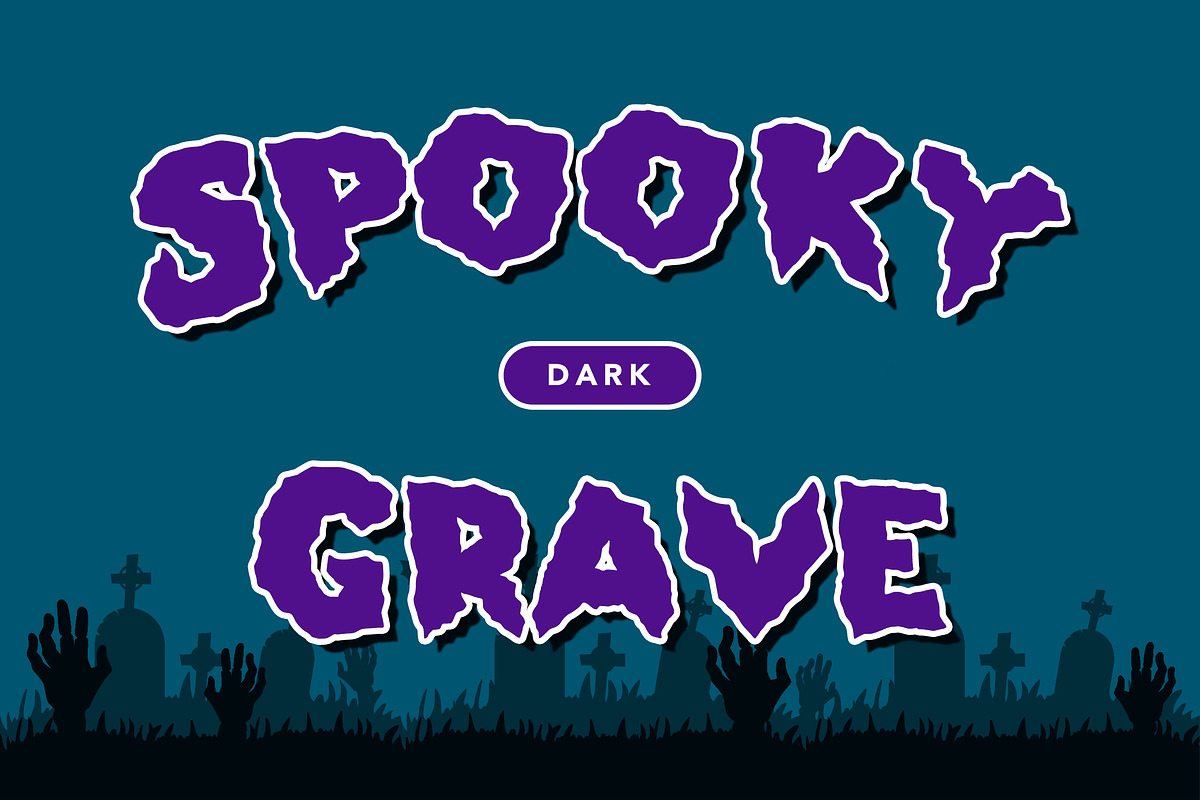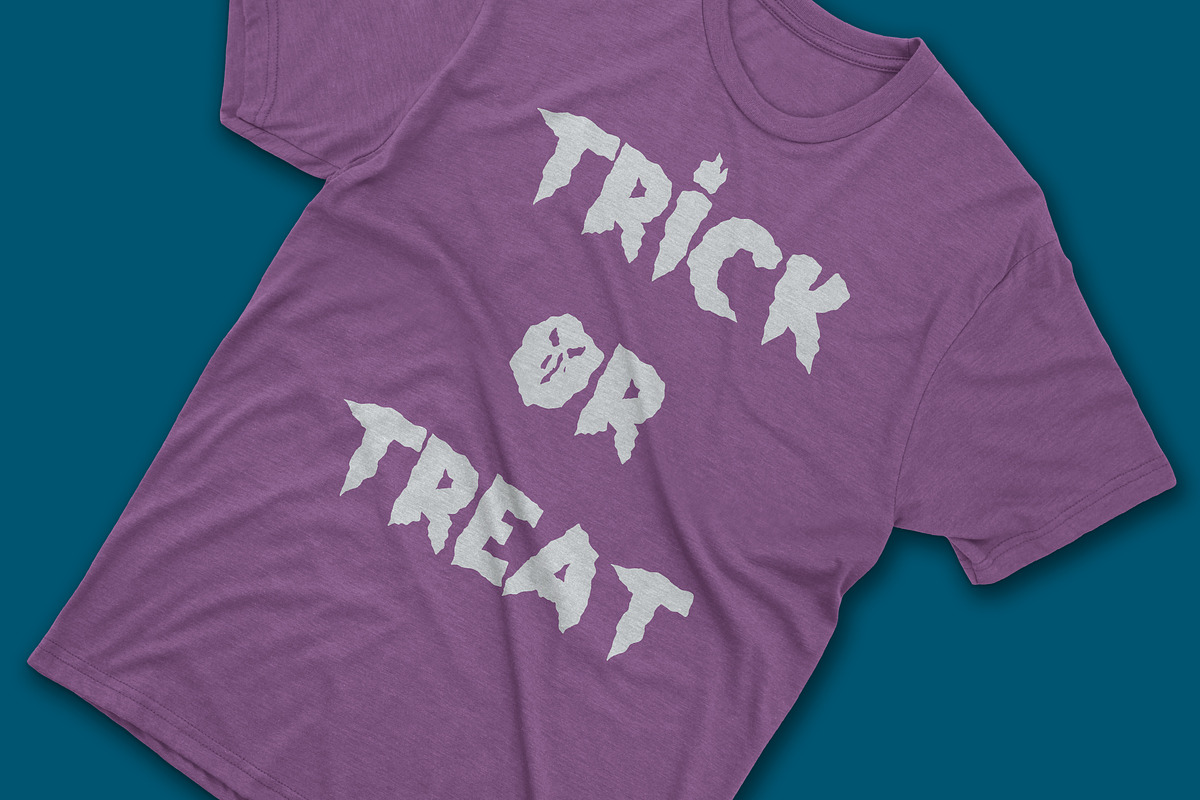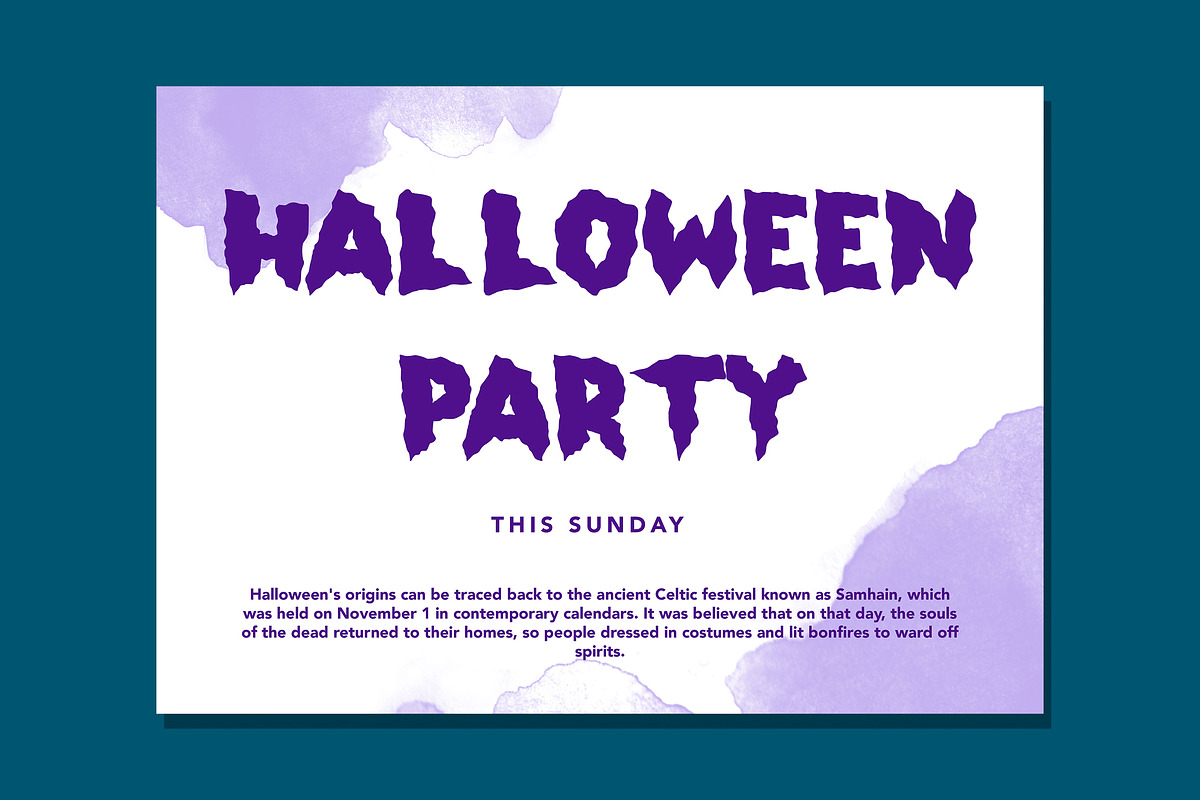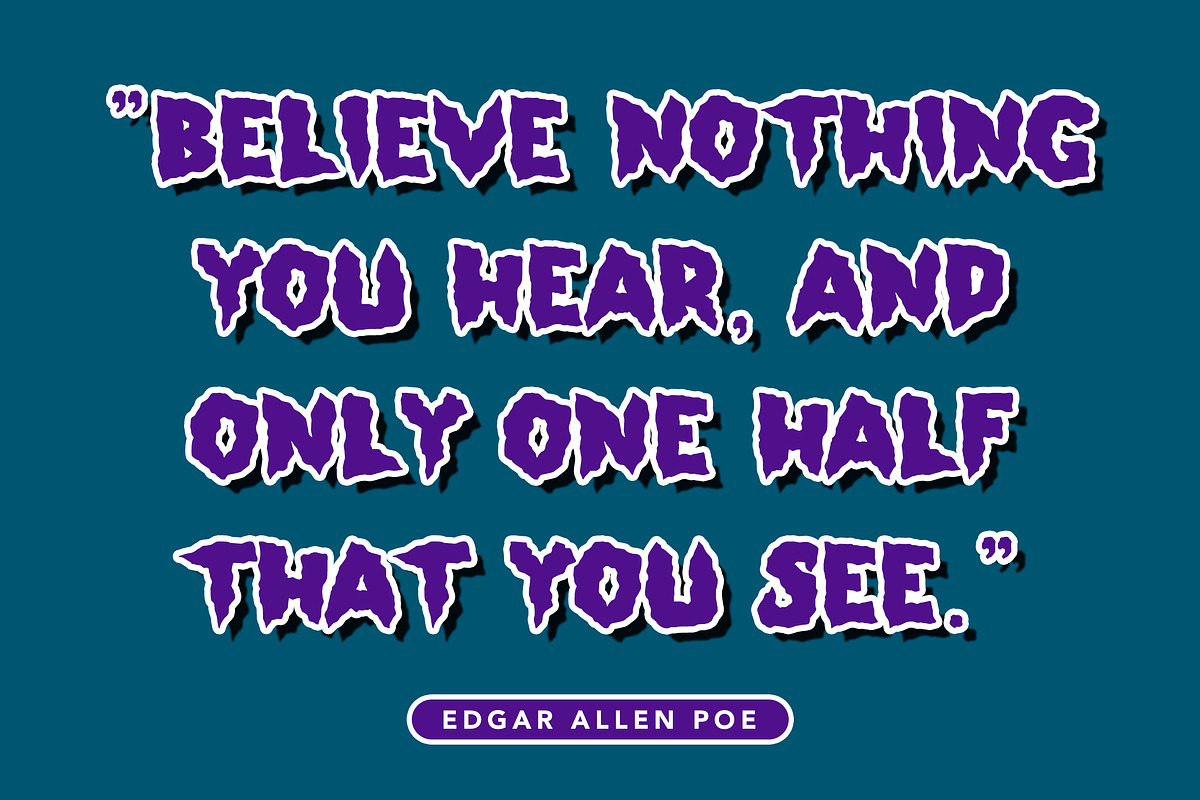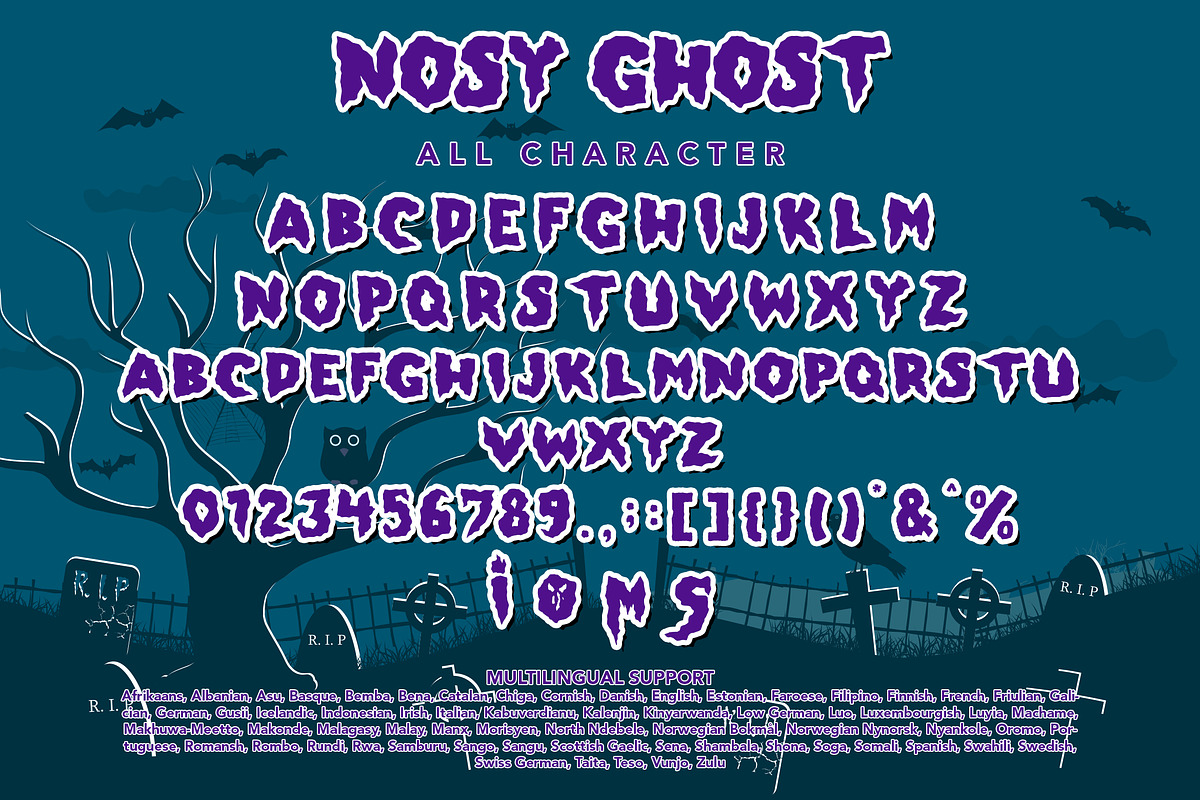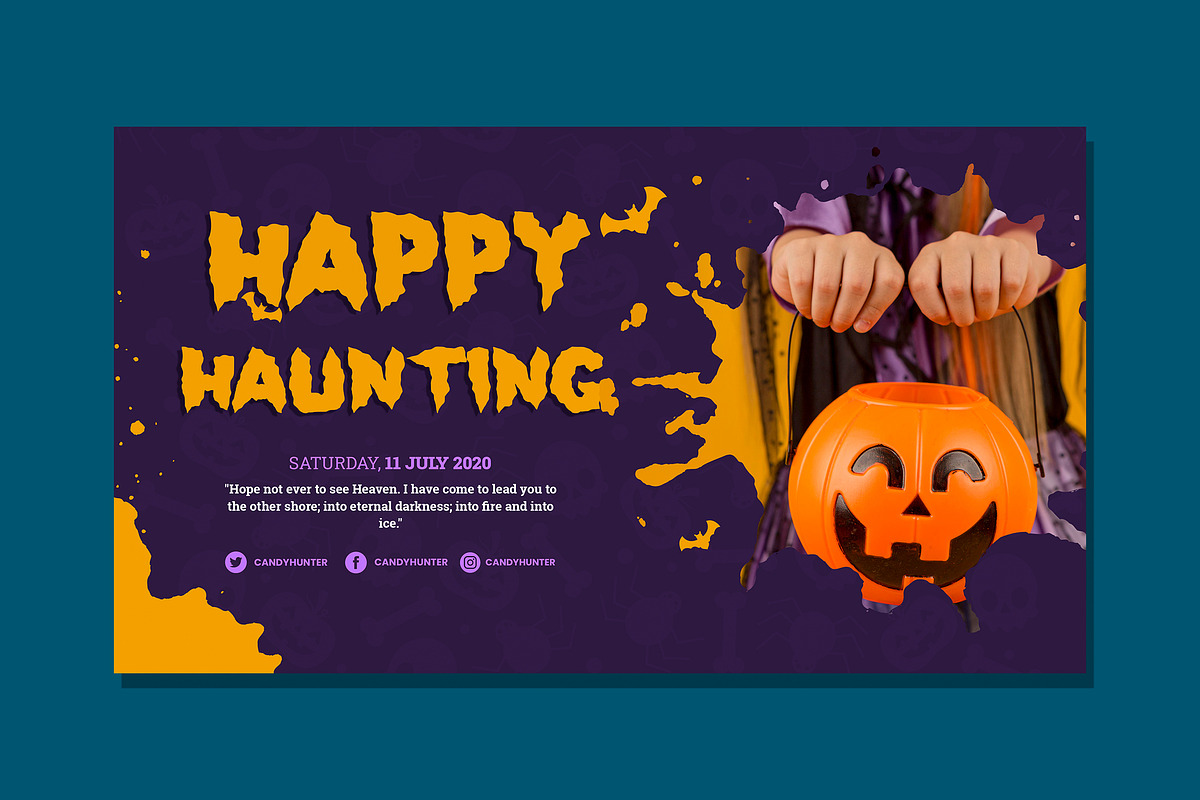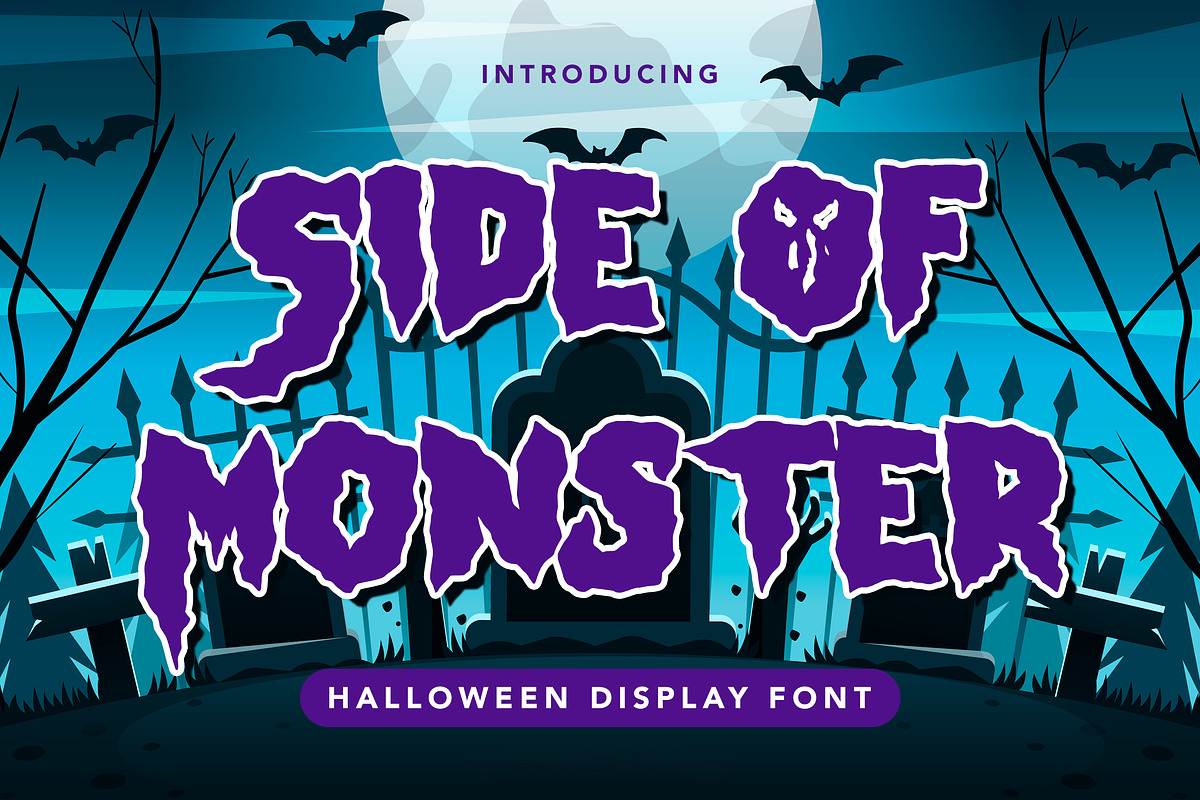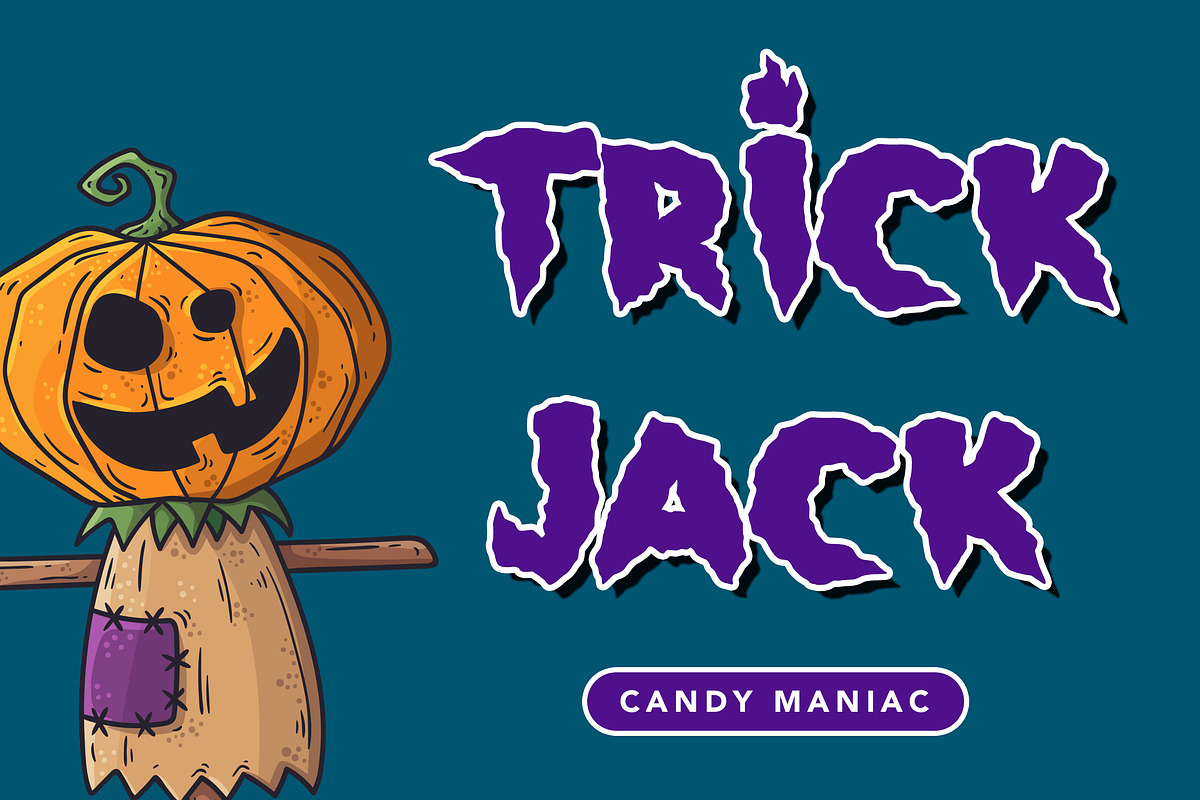
Side Of Monster
Is a halloween display font with distinctive handwritten characters perfect for branding projects, logos, clothing designs, media posts, advertisements, product packaging, product designs, labels, photography, watermarks, invitations, stationery, and any project who need handwritten dishes.